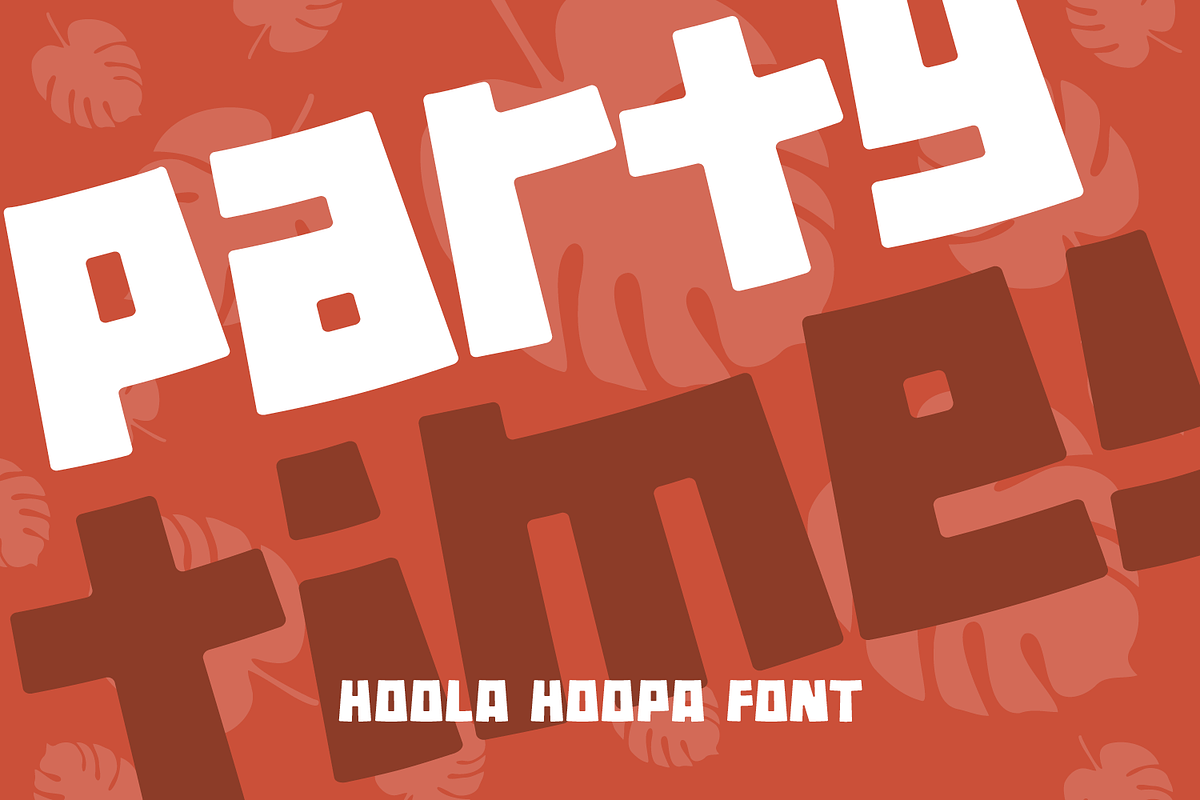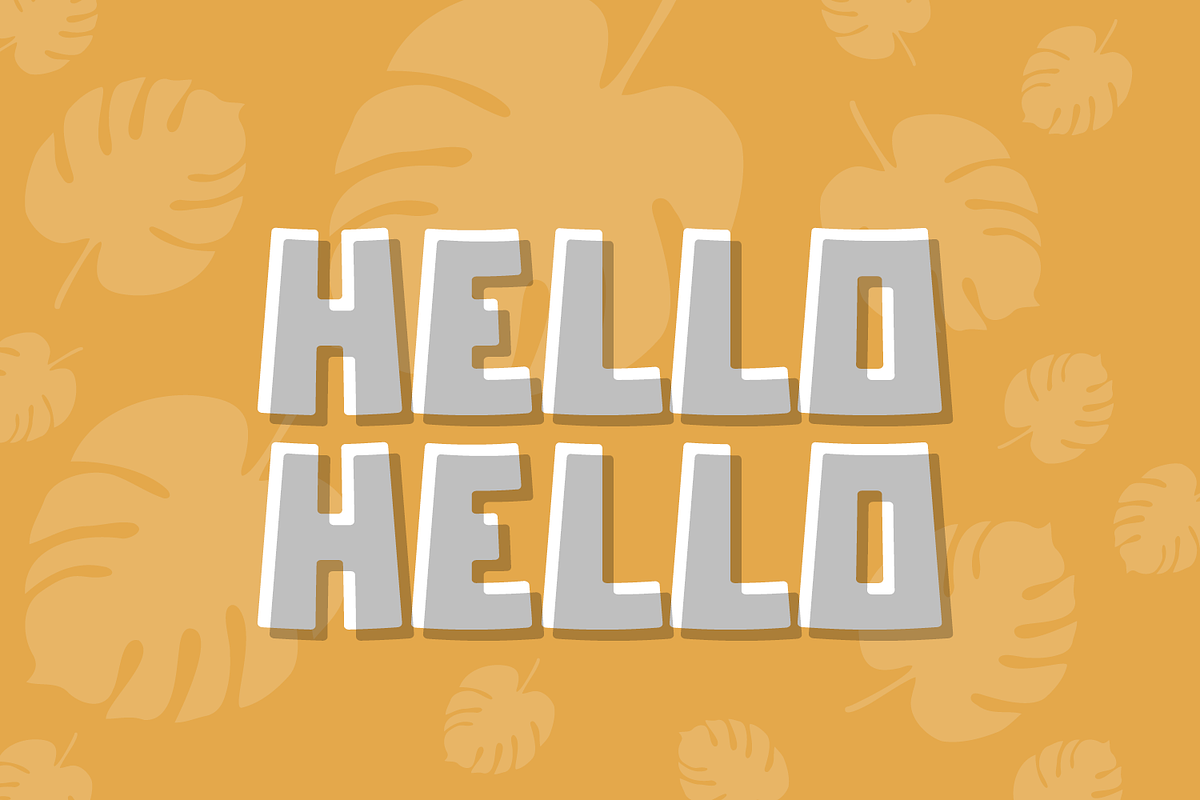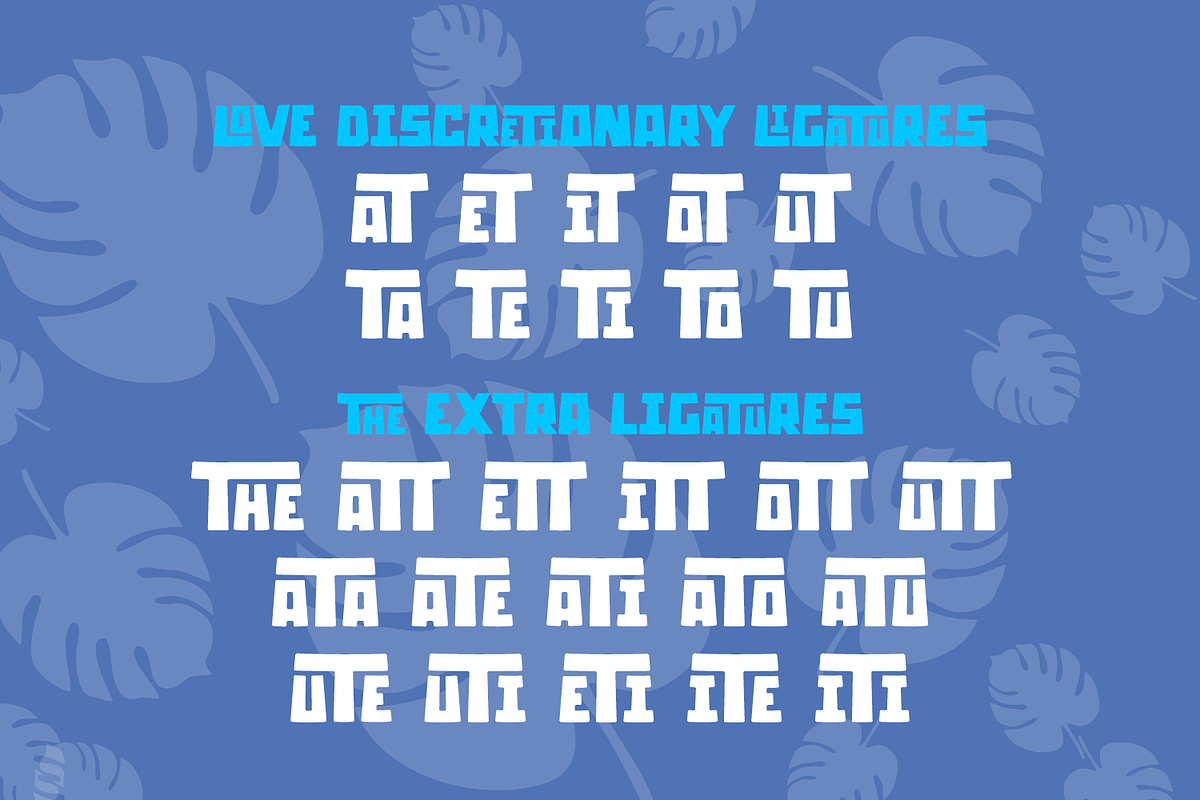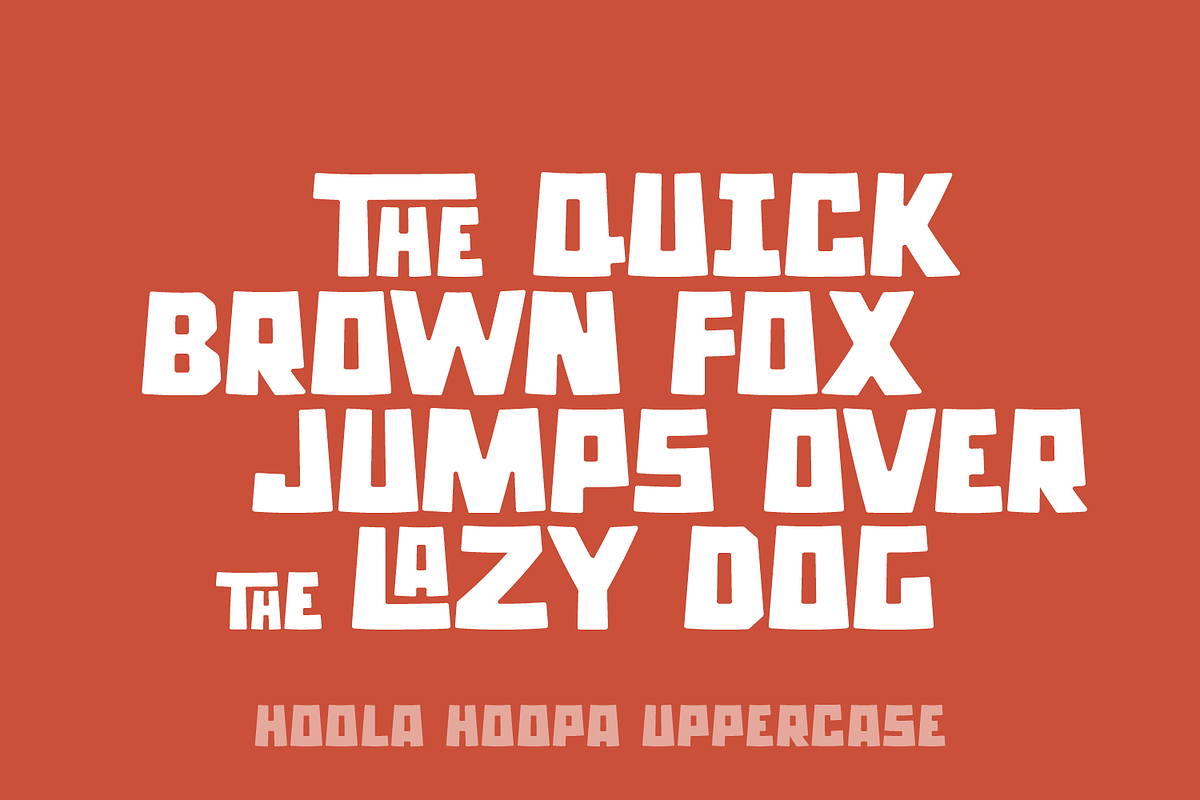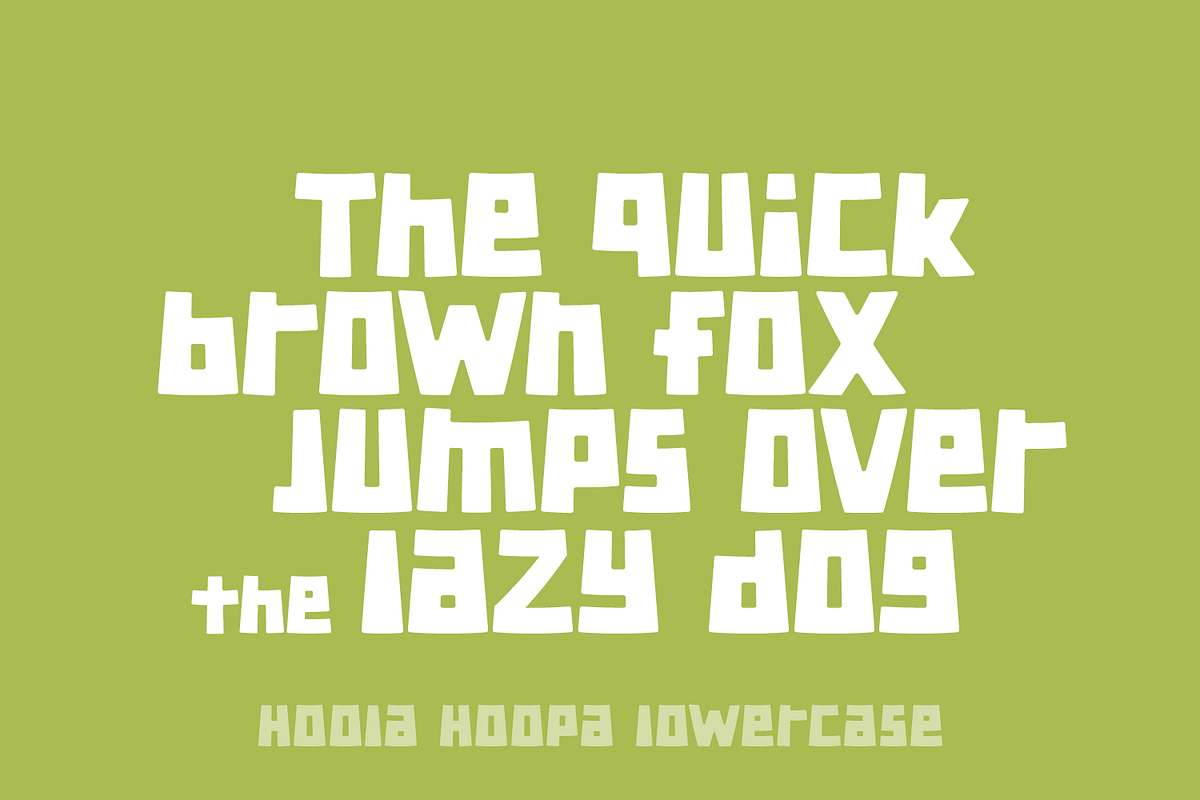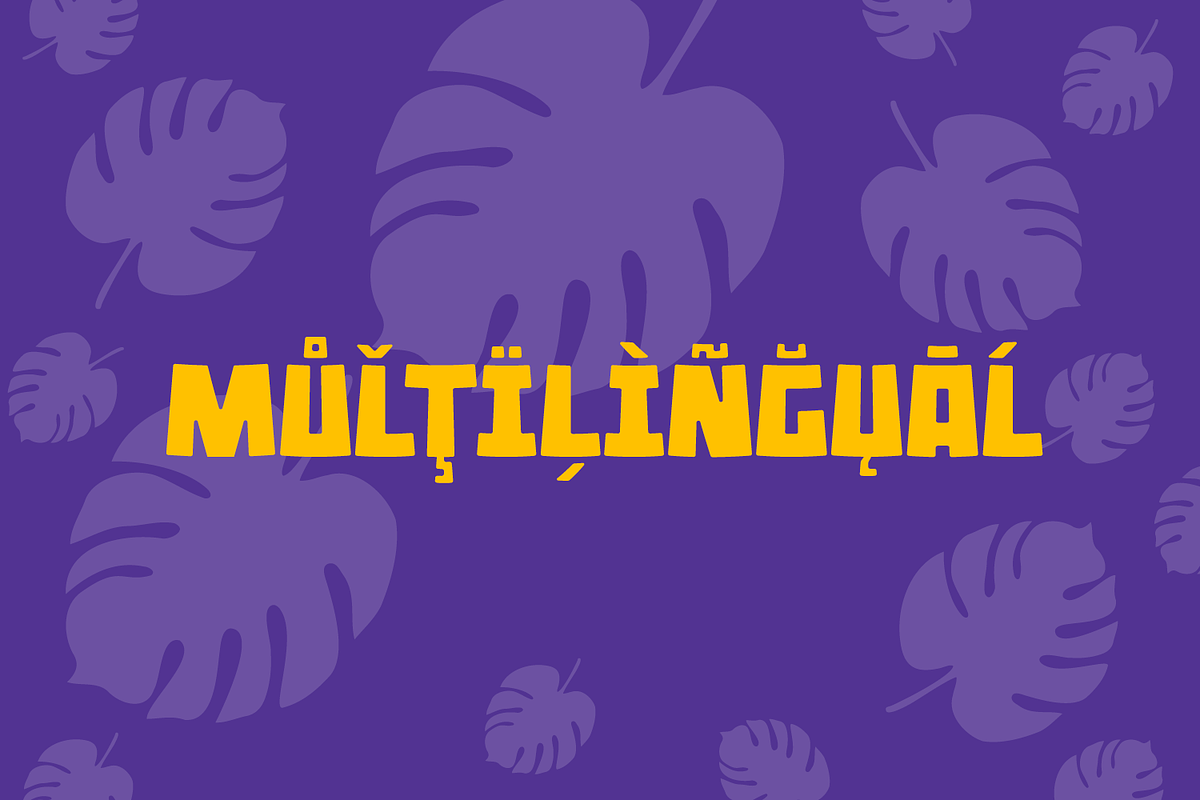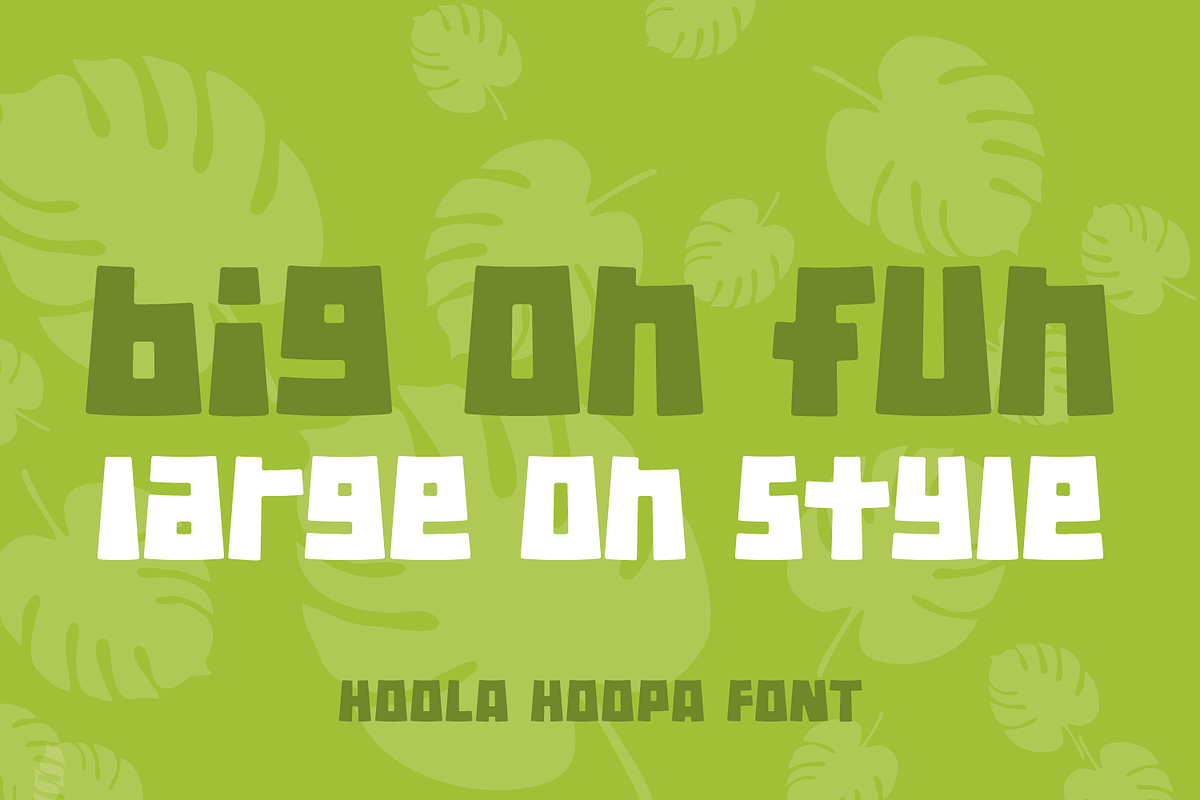
HOOLA HOOPA a big fun, big impact font
Hoola Hoopa font. PLUS BONUS LIGATURE SET (Hoola Hoopa Extra)
A BIG FUN Font. LARGE on style. Great for adding some much needed character to your designs. For crafting, logos, branding, products, merchandise, editorial and much more. Make an impact!
Full uppercase, lowercase, special characters, FULL European glyph set. 'Hoola Hoopa EXTRA' version comes with 3 character discretionary ligatures. The original Hoola Hoopa regular contains 2 character ligatures.